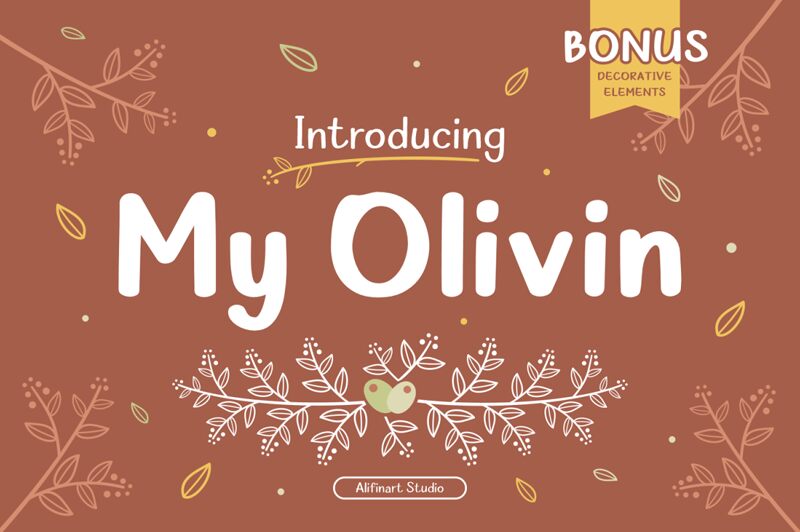
My Olivin Regular
My Olivin is a cute script font designed by Alifinart Studio.
My Olivin by Alifinart
My Olivin is a sweet and friendly handwritten font. Its natural and unique style makes it incredibly fitting to a large pool of designs.